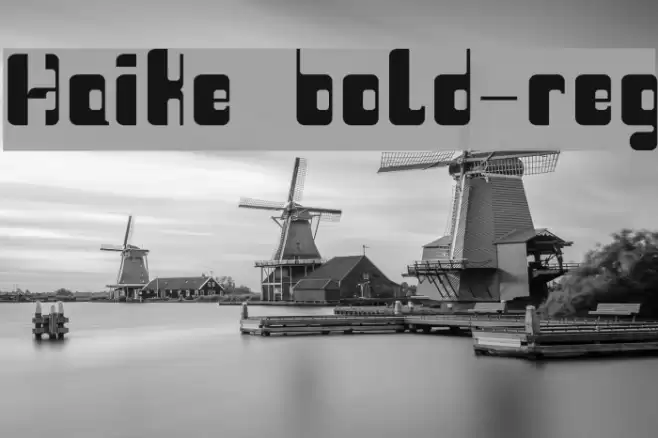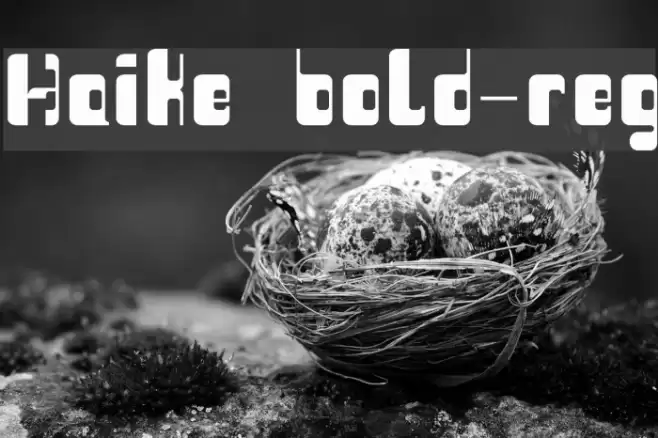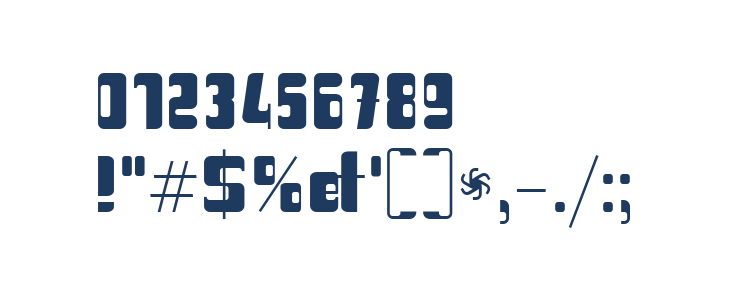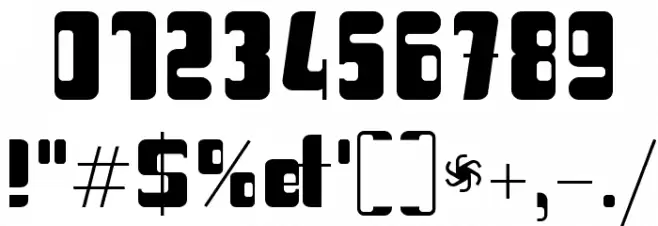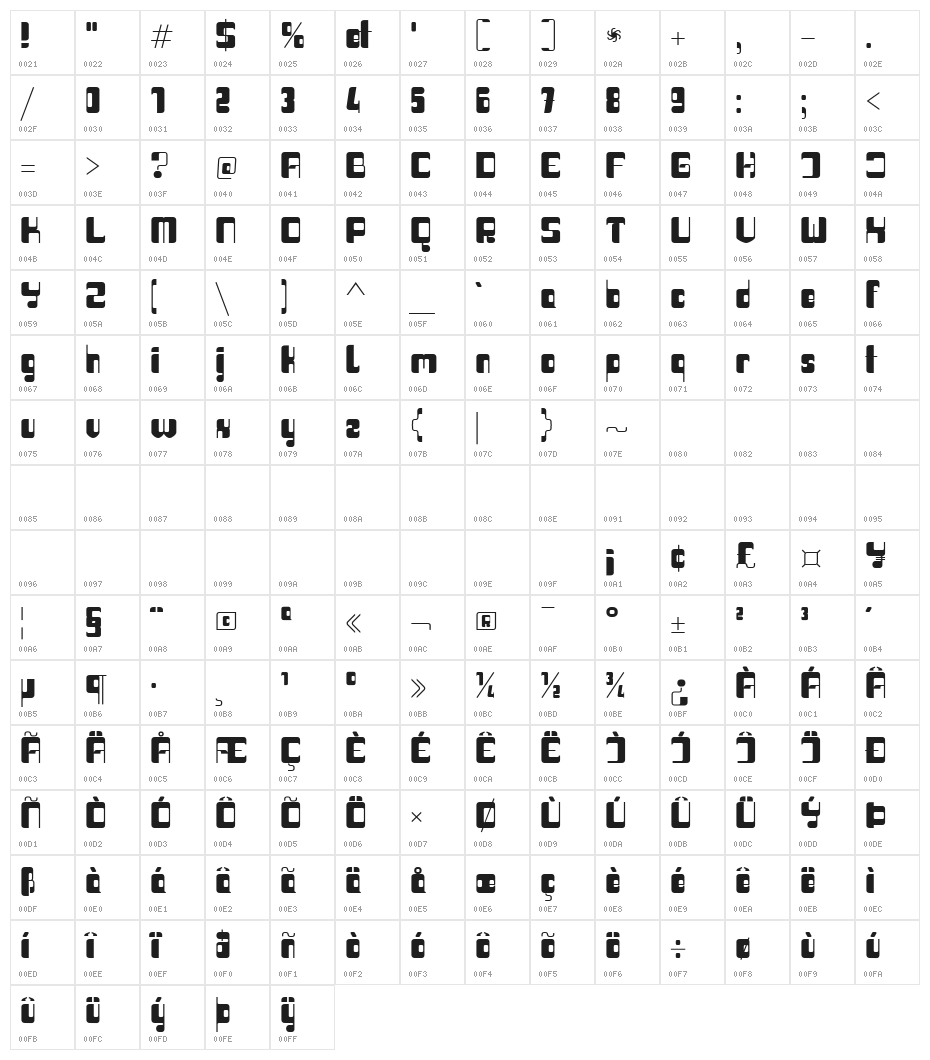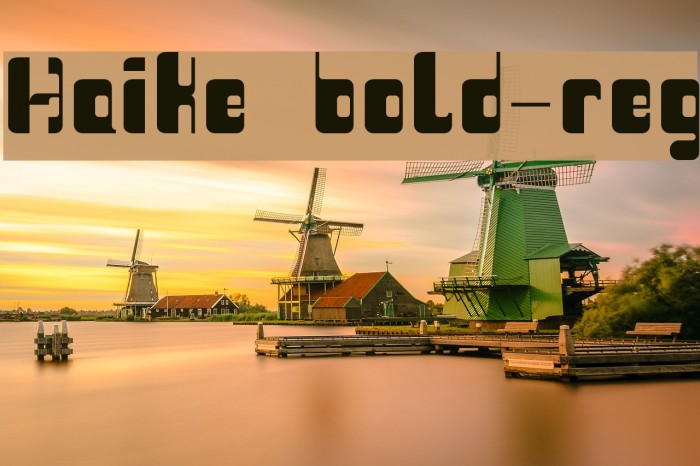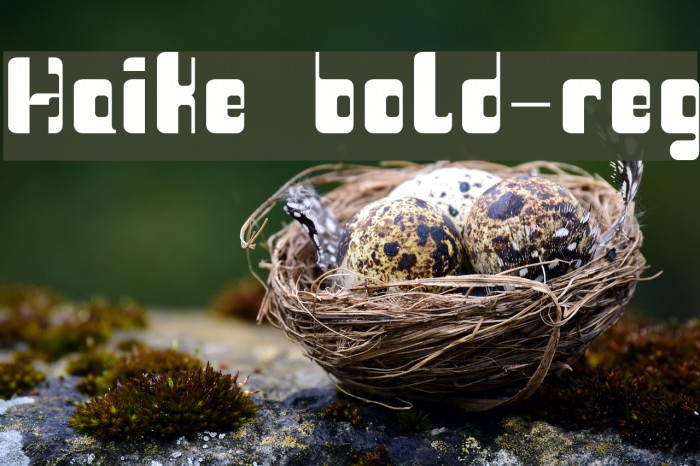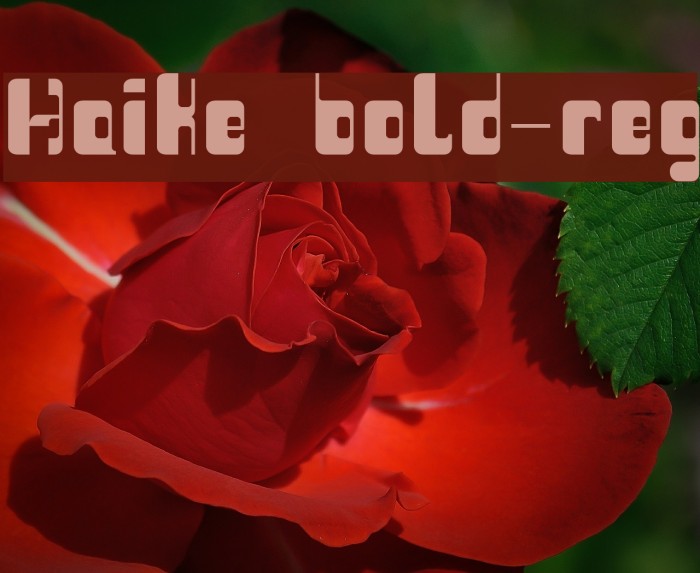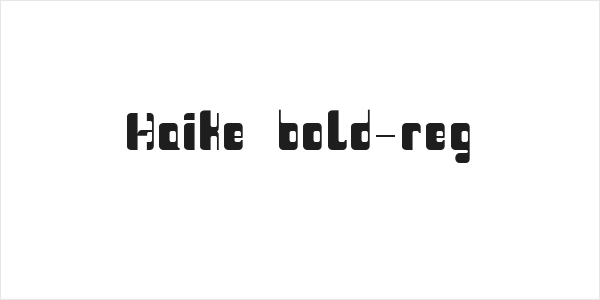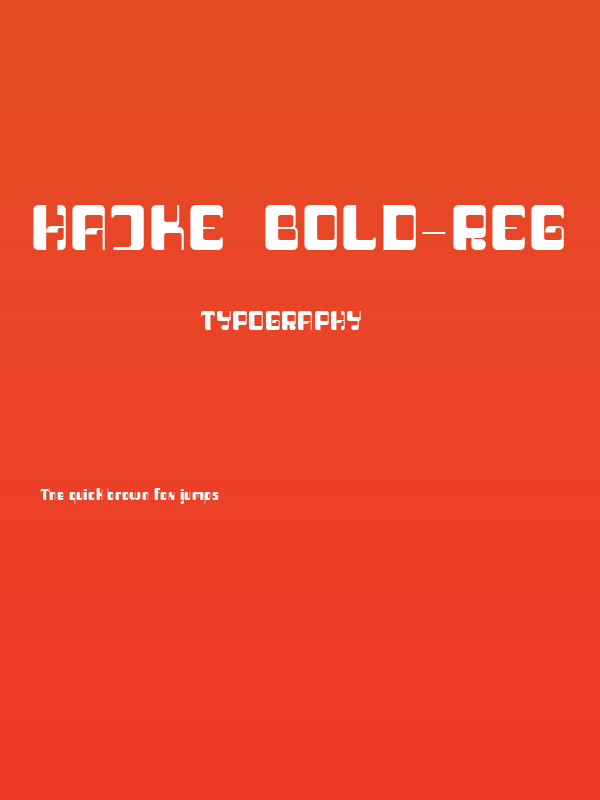
Haike bold-reg Font
Haike bold-reg Description
This font features a bold and modern design with a geometric and blocky appearance. The characters are uniformly thick, creating a strong visual impact. The uppercase and lowercase letters maintain a consistent style, with rounded edges and a slightly condensed form. The numerals and special characters follow the same bold and structured design, making the font suitable for attention-grabbing headlines and titles. Its unique style is both futuristic and retro, offering versatility in various design contexts.
A bold, geometric font with a modern and blocky style from Uncategorized fonts.
- Proposed Projects: Ideal for branding, posters, headlines, and digital media where a strong visual presence is desired.